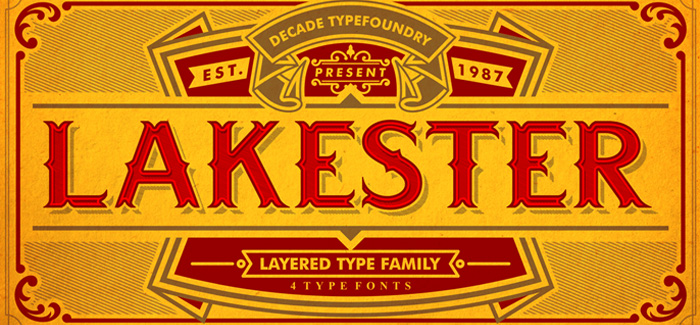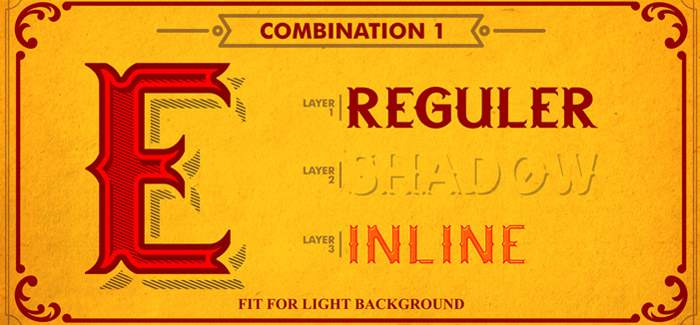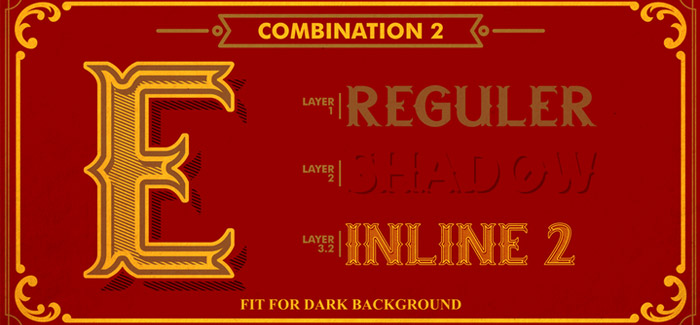
Lakester font
Lakester font is a multi-layer display font family by Decade type foundry. It is inspired and therefore influenced by the classic American vintage posters. Lakester font is developed in one leading spurred style called Regular and supported by three other shadowed and inline styles sold as separate fonts too. This font family will become your favorite if you want to add more authenticity to your work and you could use it best for headlines, t-shirts, cigars packaging, wine labels, food and beverage packaging, posters and strong logos.